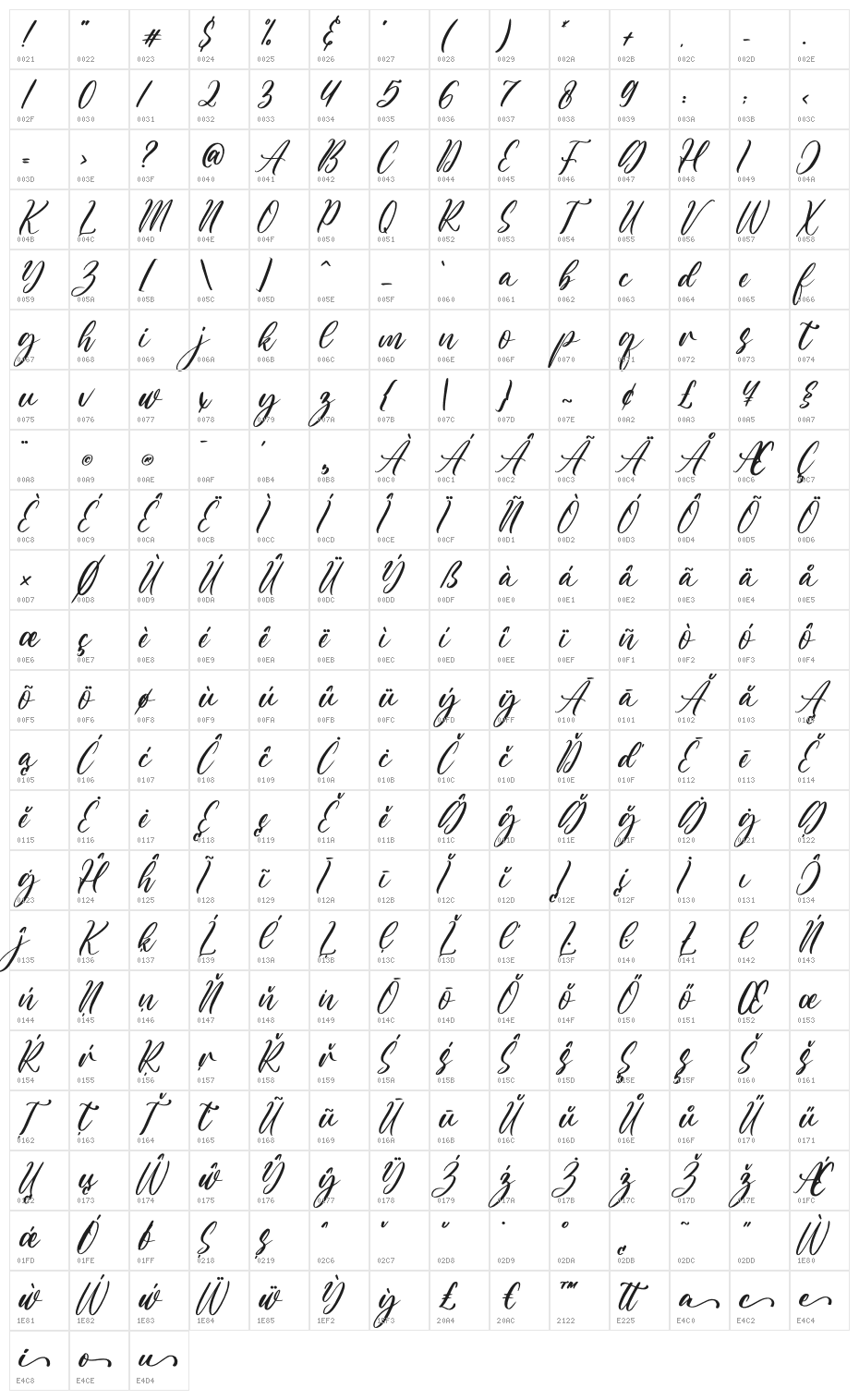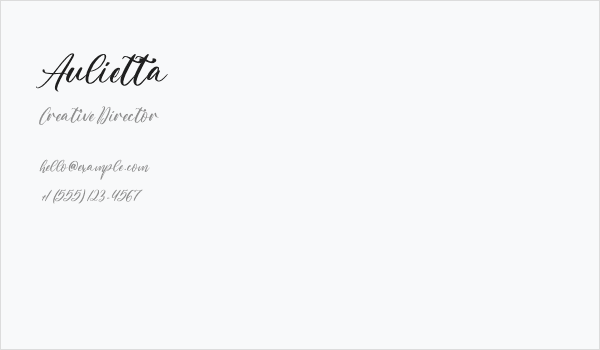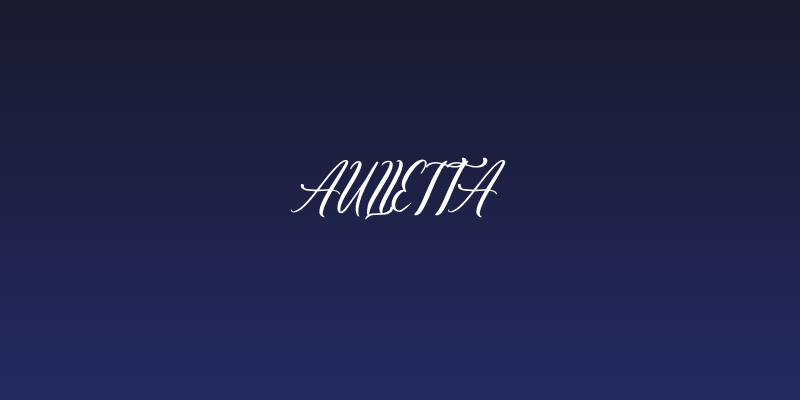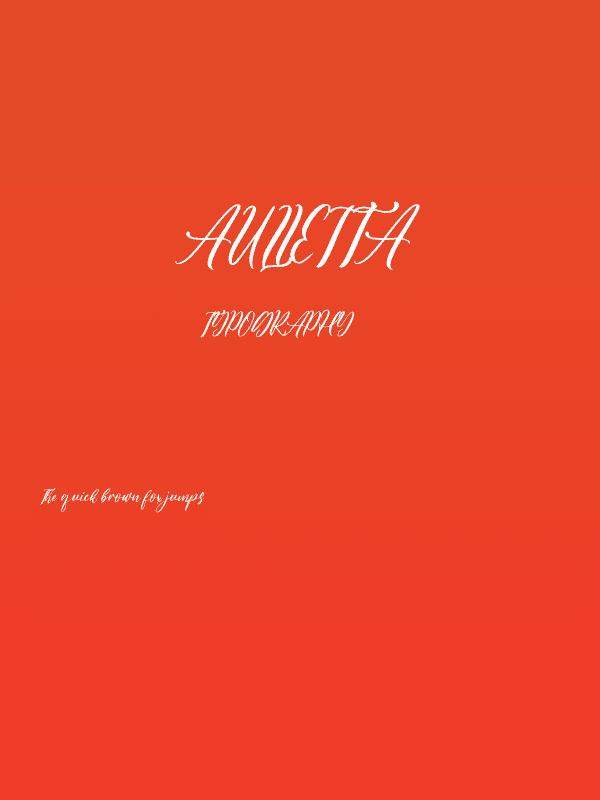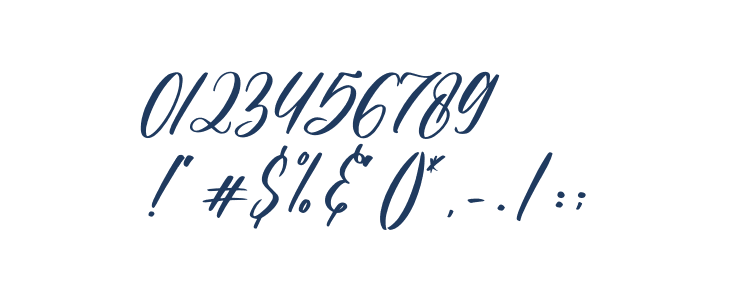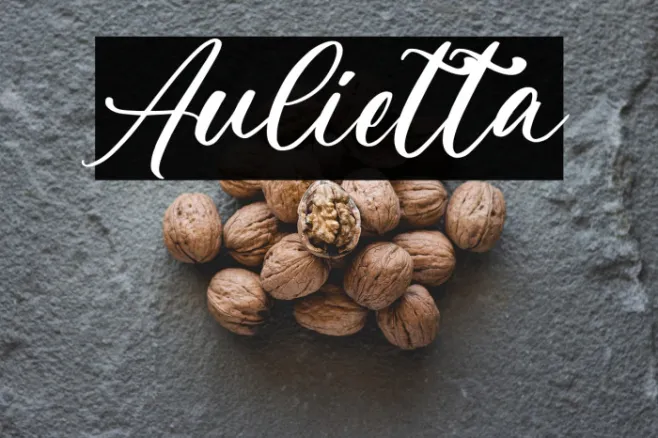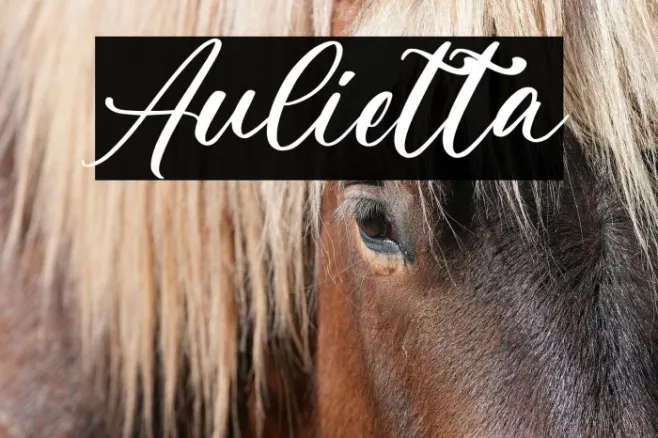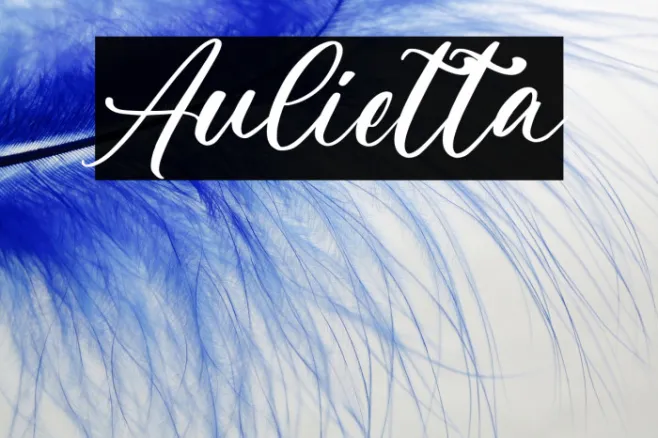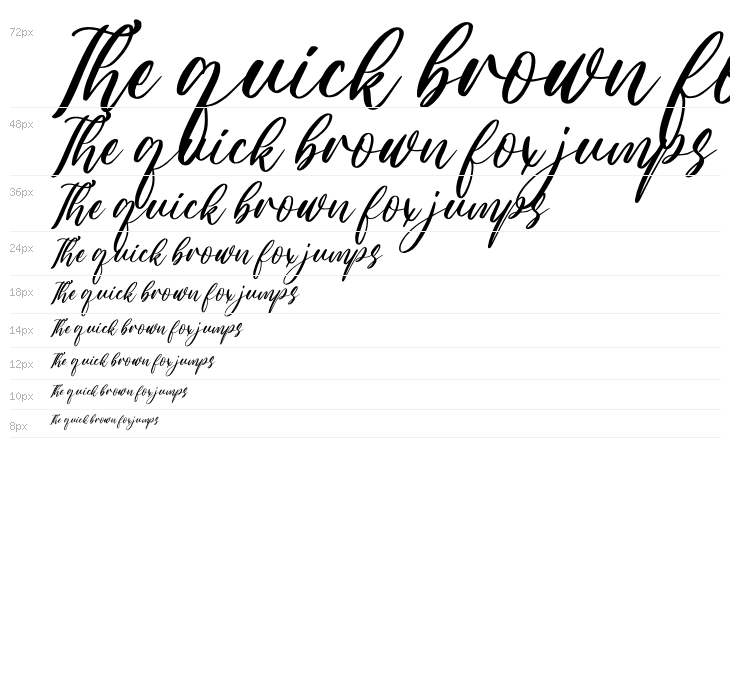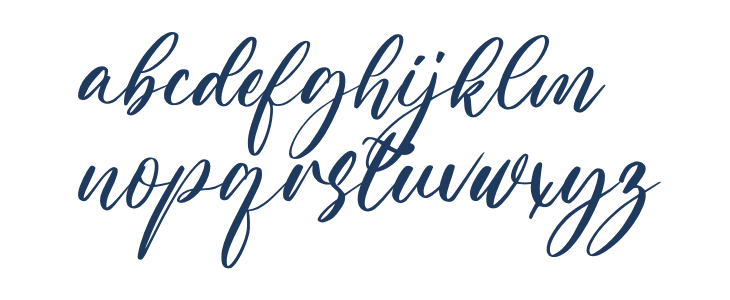
Aulietta Font
Aulietta Description
This font exudes a dynamic and elegant script style, characterized by its fluid and cursive letterforms. The strokes are smooth and connected, giving it a handwritten appearance that is both sophisticated and approachable. The uppercase letters are bold and sweeping, while the lowercase letters maintain a consistent flow, enhancing readability. The numerals and special characters are crafted with the same attention to detail, ensuring a cohesive look across all text. This font is perfect for adding a personal touch to any design, making it ideal for invitations, branding, and more.
| Proposed Projects | Ideal for wedding invitations, branding, greeting cards, and elegant packaging designs. |